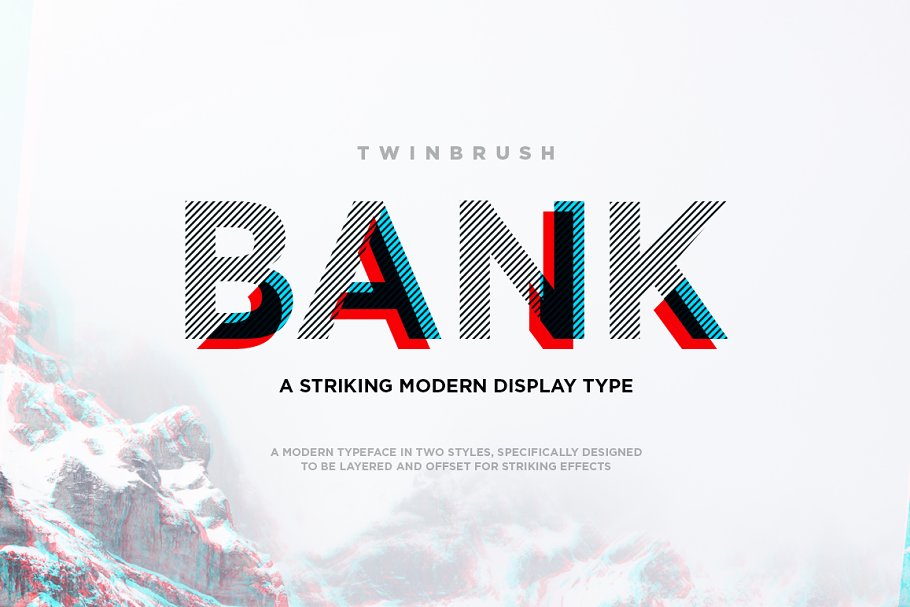
Introducing Bank Typeface, a striking modern sans-serif font created by Rian Magee, perfect for modern UI designs. This font family comes in two styles - lined and sectioned - which have been meticulously designed to be layered on top of each other, creating an alternate third style. This unique feature allows you to experiment with different colors, opacity, and blending modes, giving you a vast range of visual styles to choose from.
Bank Typeface is an all-caps display font, specifically developed for contemporary design styles and applications. While it can be used at smaller sizes, it has been primarily designed for larger scales, making it perfect for branding projects, striking posters, and unique display fonts for web or app development. Its geometric shapes and angles make it a perfect choice for modern UI designs.
But that's not all! Bank Typeface also comes with 12 geometric shape backgrounds, which are designed to compliment the angles in the font. These shapes are perfect for using as masks, image overlays, or solid color background fills. They are supplied in both Photoshop shape format and Illustrator (CC and CS5) vector format, making them easy to use across a range of design software.
In summary, Bank Typeface is a unique and eye-catching font family, perfect for modern UI designs, branding projects, and striking posters. With its layered styles and geometric shapes, you can experiment with different visual styles and create a look that truly stands out. Plus, with its license for personal or commercial use, it's a great addition to any designer's toolkit.